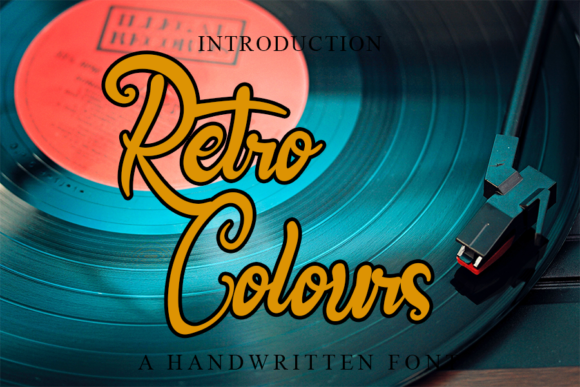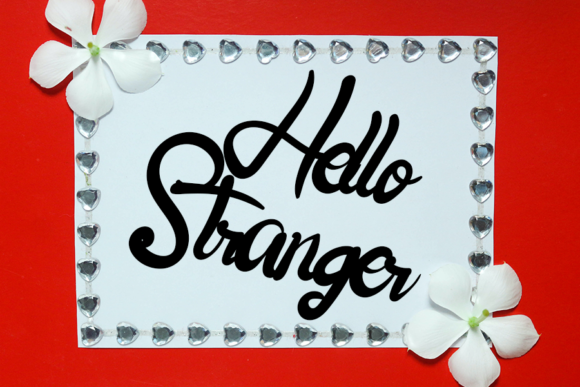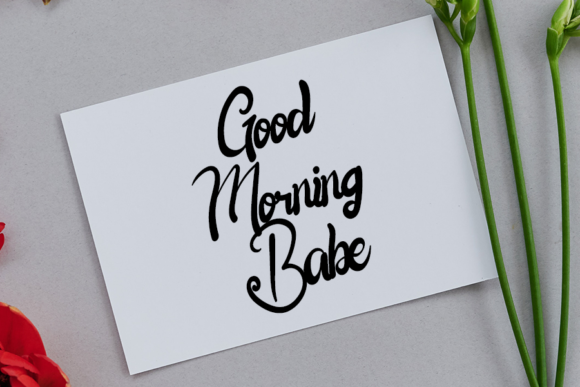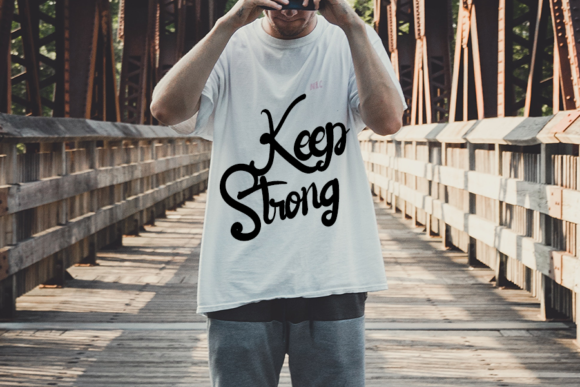
About Retro Colours Font
Retro Colours is a charming handwritten font that brings a playful and retro vibe to your designs. With its bouncy characters and superb style, this font is an excellent choice for a wide range of projects, particularly those that require a touch of whimsy and a handwritten feel.
The distinctive feature of Retro Colours is its ability to evoke a sense of nostalgia and vintage charm. The letterforms have a fun and energetic quality, giving your designs a lively and joyful feel. Whether you’re designing wedding invitations, birthday cards, or any other creative project, Retro Colours adds a unique and personal touch.
The versatility of Retro Colours allows it to be used in various contexts. Its handwritten nature makes it particularly suitable for projects where you want to convey a sense of warmth, authenticity, and individuality. The font’s bouncy characters add a touch of playfulness, making it perfect for designs that aim to capture a fun and lighthearted atmosphere.
Retro Colours shines in both print and digital mediums. Whether you’re creating physical invitations or digital graphics, this font will bring your designs to life. Its superb style and distinctive appearance will catch the viewer’s eye and make a lasting impression.
The beauty of Retro Colours lies in its ability to evoke a sense of handmade craftsmanship. Its imperfect strokes and unique letterforms give it a personal and artisanal touch. This font stands out among the crowd, adding character and personality to your designs.
In summary, Retro Colours is a lovely handwritten font with bouncy characters and a superb style. It brings a playful and retro vibe to your designs, making it a perfect choice for wedding invitations, birthday cards, and other creations that require a handwritten touch. With Retro Colours, you can infuse your designs with a sense of nostalgia, whimsy, and individuality.